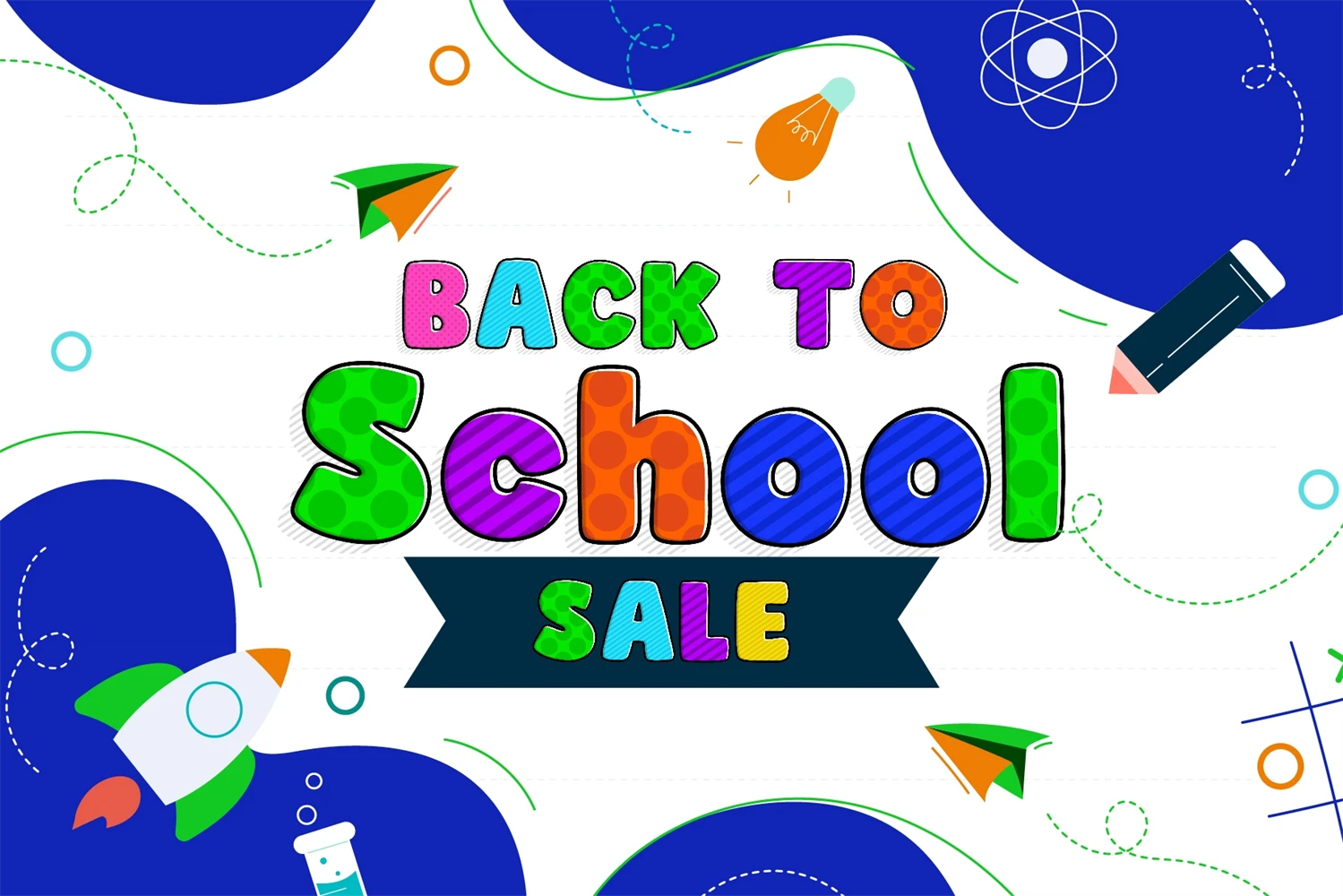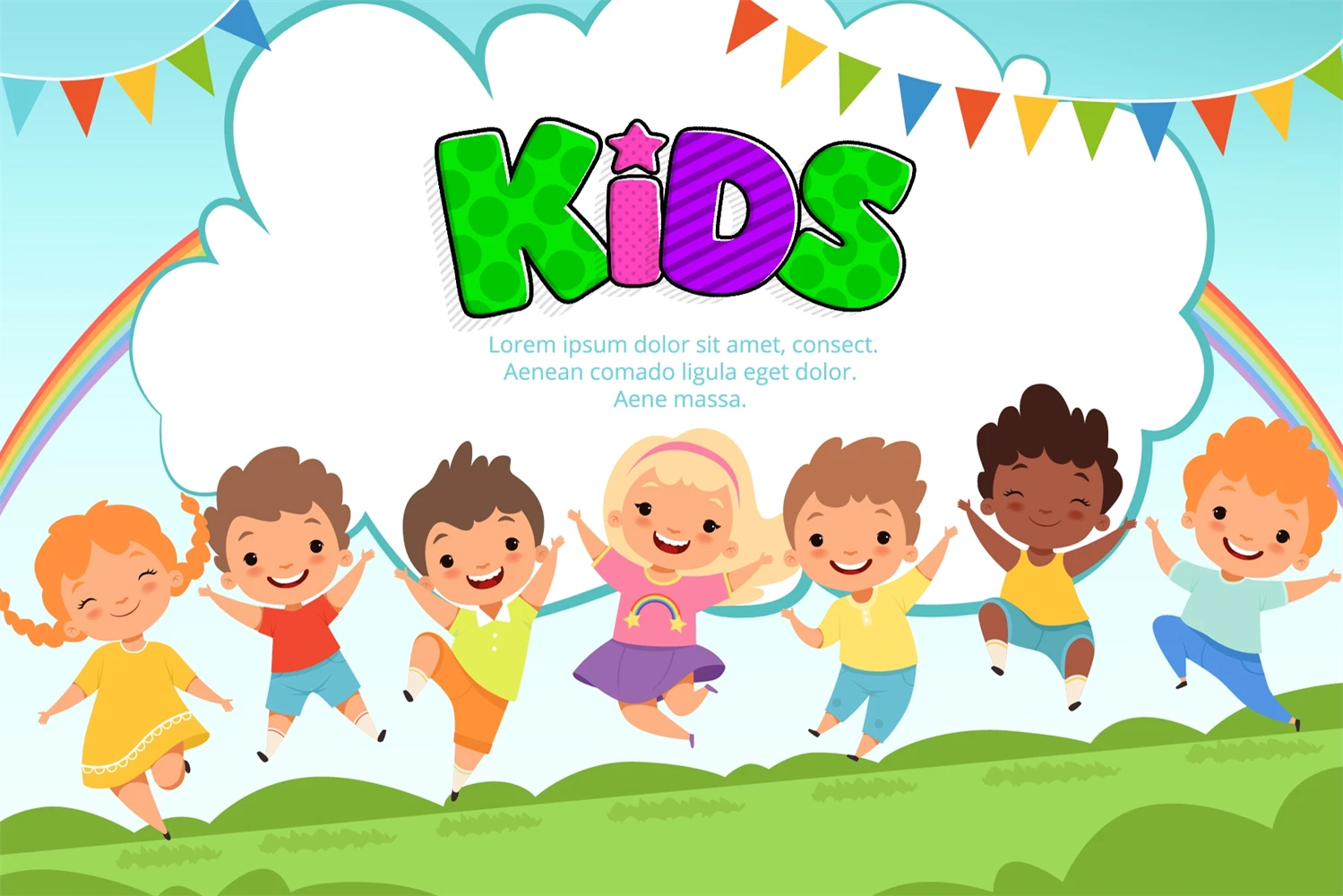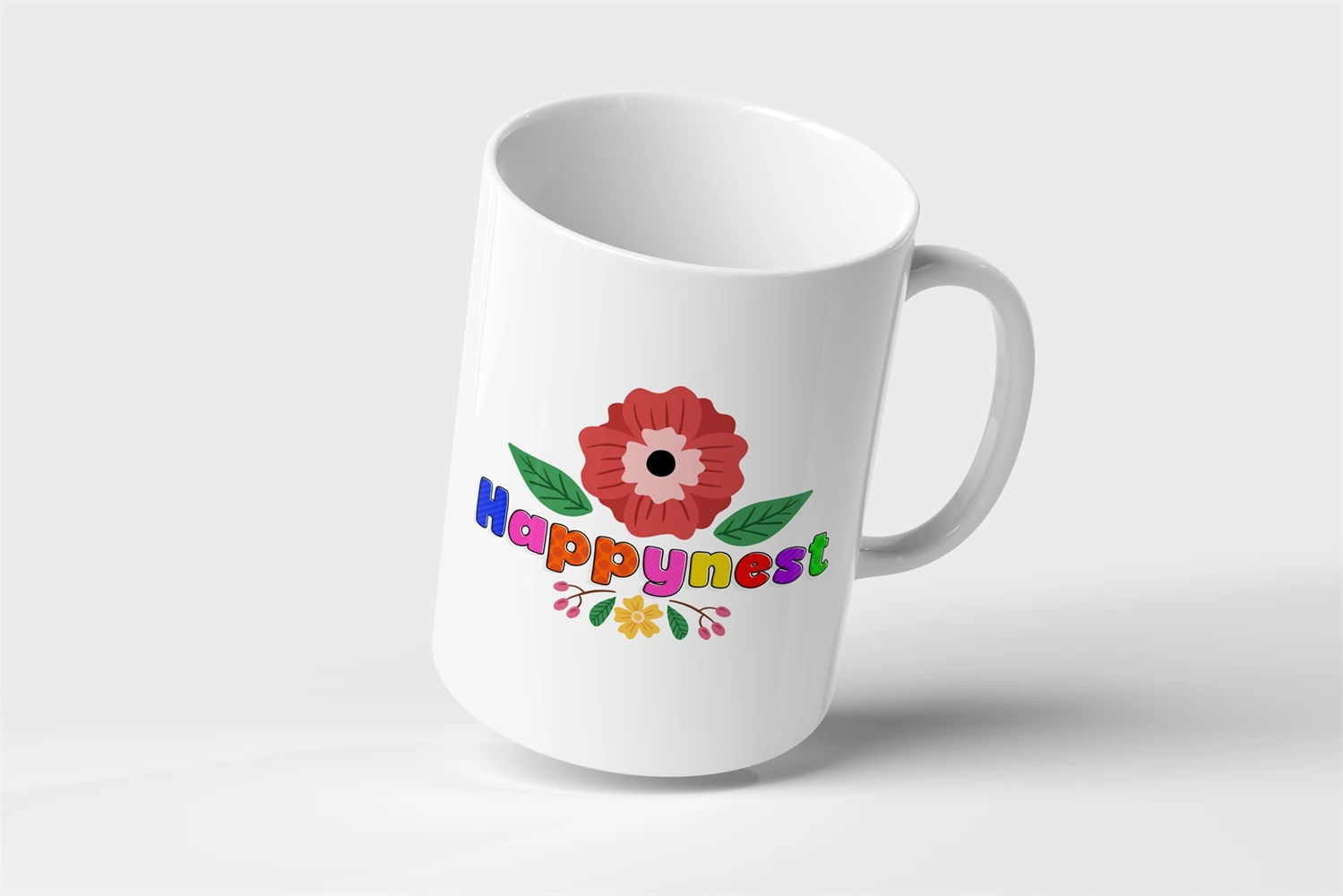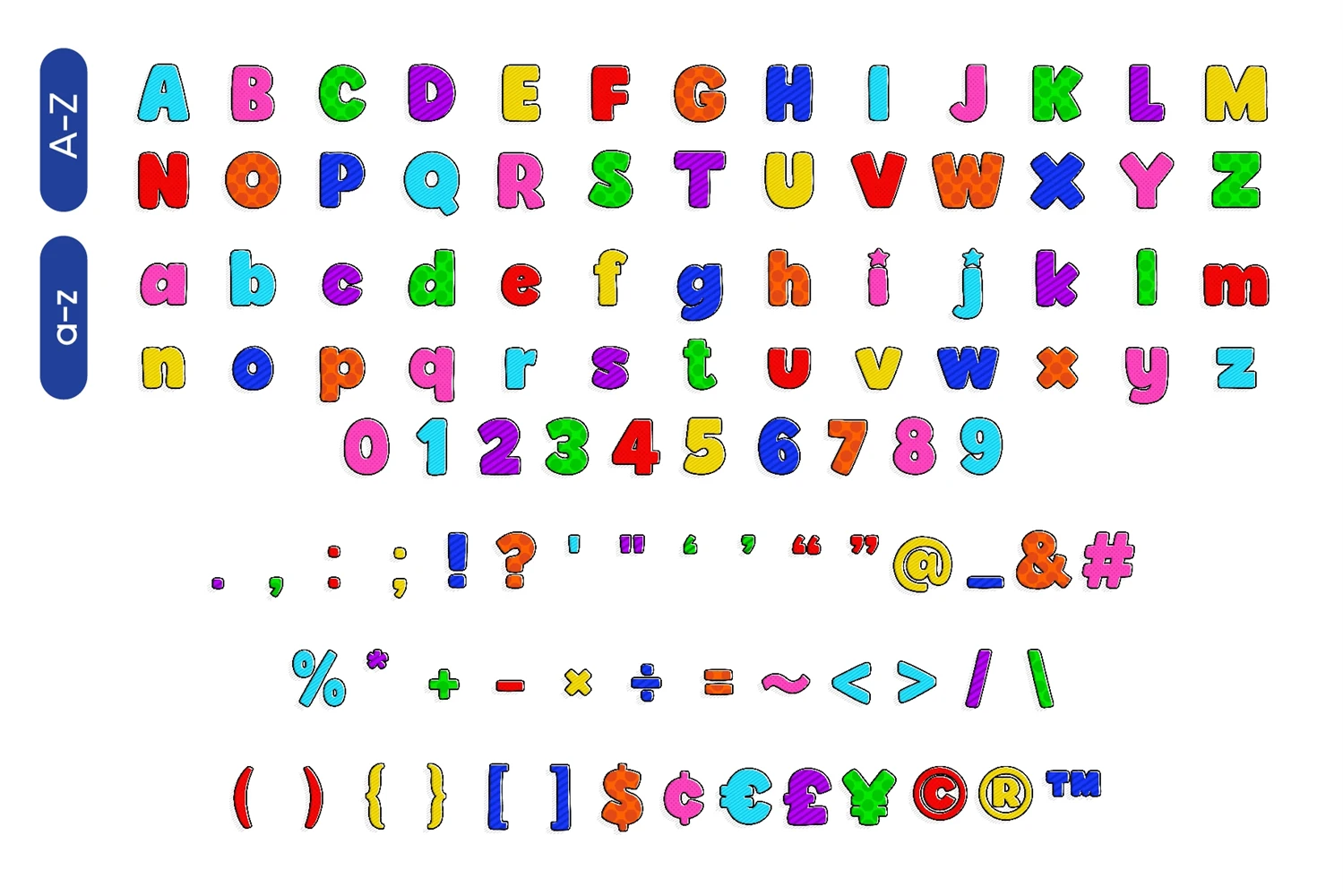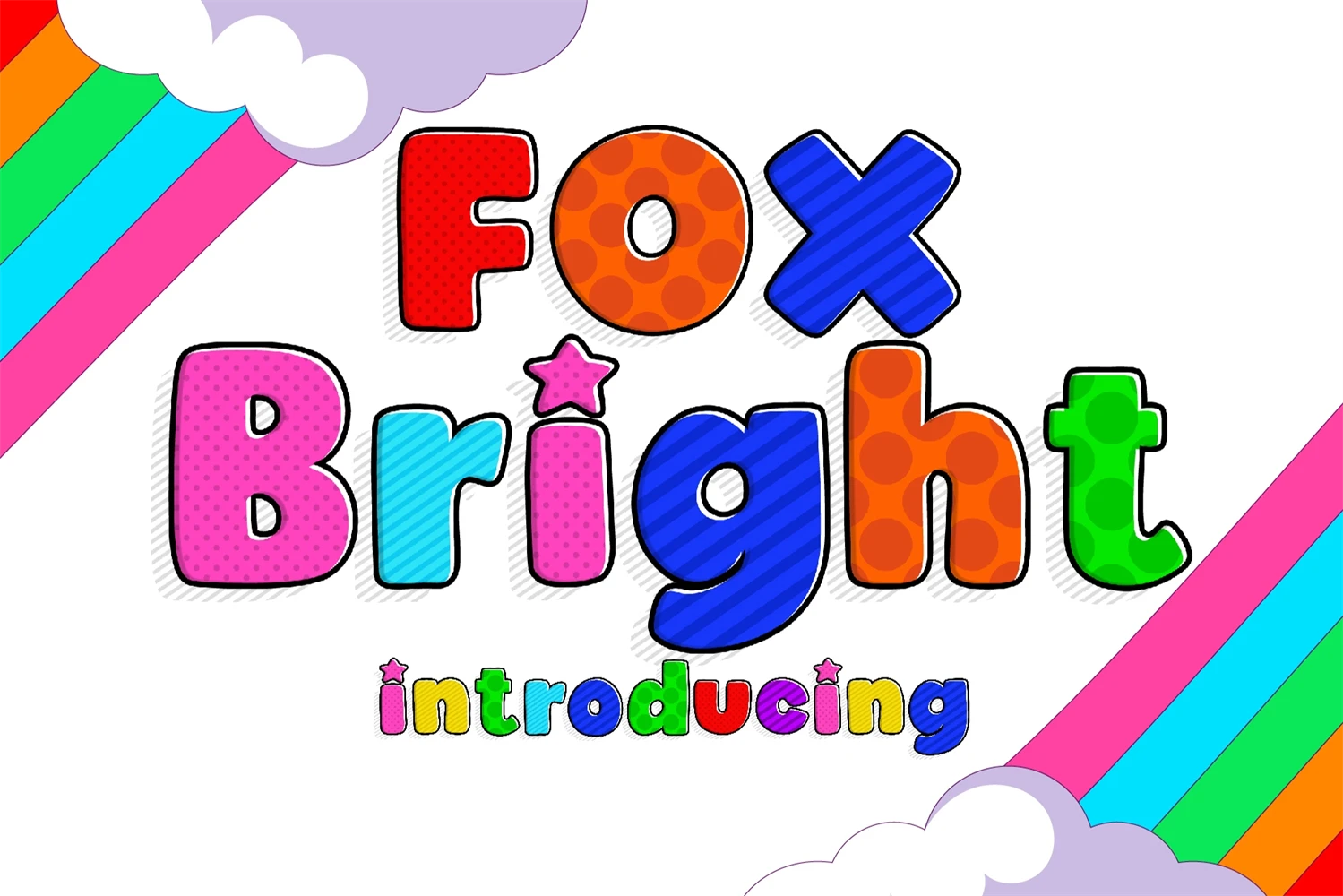
Fox Bright is a childish, cute, bright, and fun colorful font. Fall in love with its authentic feel and use it to create gorgeous invitations, beautiful stationary art, eye-catching social media posts, and cute greeting cards. Add this beautiful font to your creative ideas, and notice how it makes them stand out.